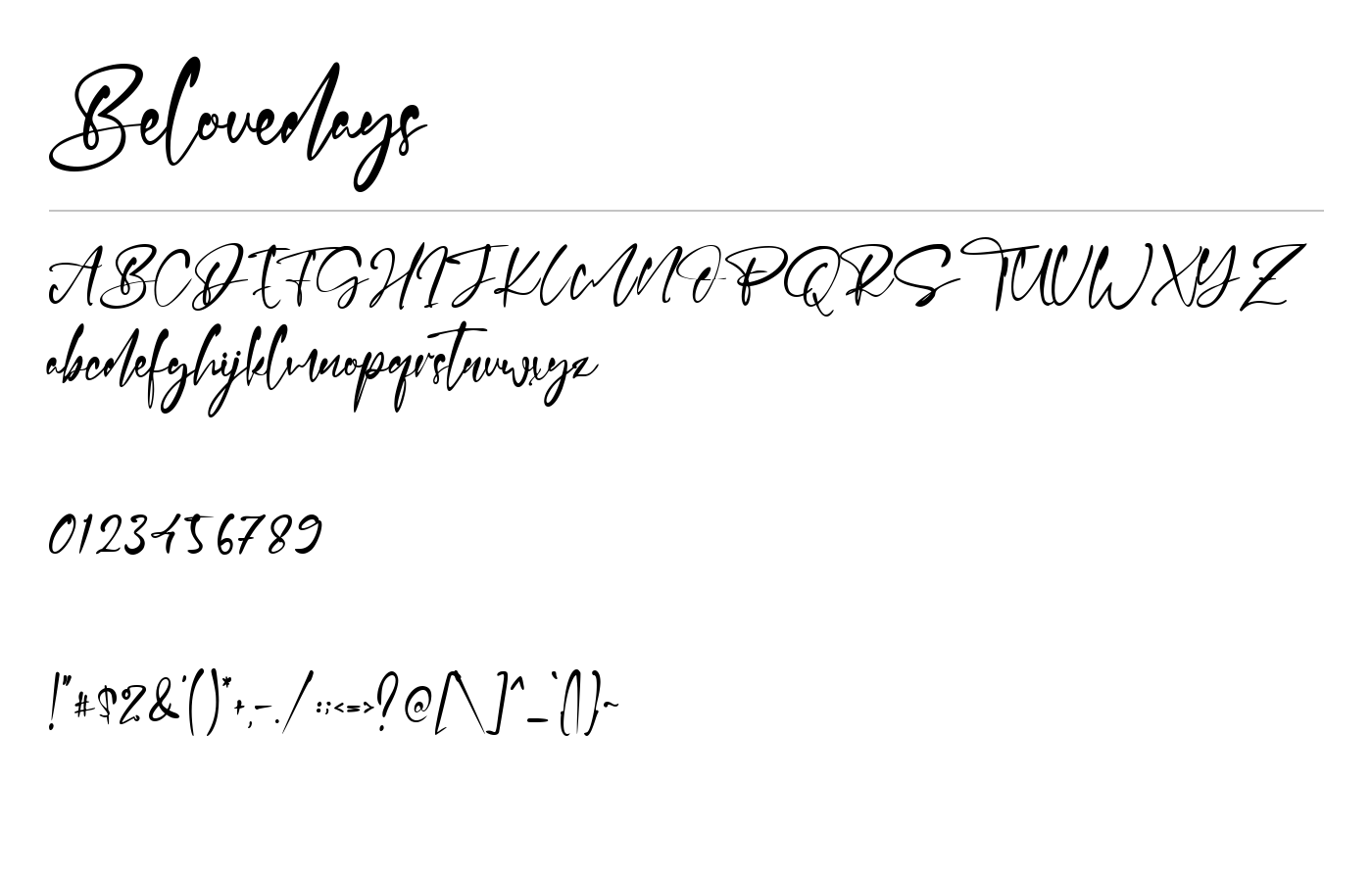
Belovedays is an elegant handwritten script font that features fluid strokes with a natural, calligraphic feel. Its slender characters and slight variations in weight give it a charming, personal touch, making it perfect for wedding invitations, branding, and creative projects that need a stylish yet approachable vibe. The font's graceful and flowing design works well in headlines and decorative text where a warm, intimate atmosphere is desired.
Belovedays Font
About Belovedays Font